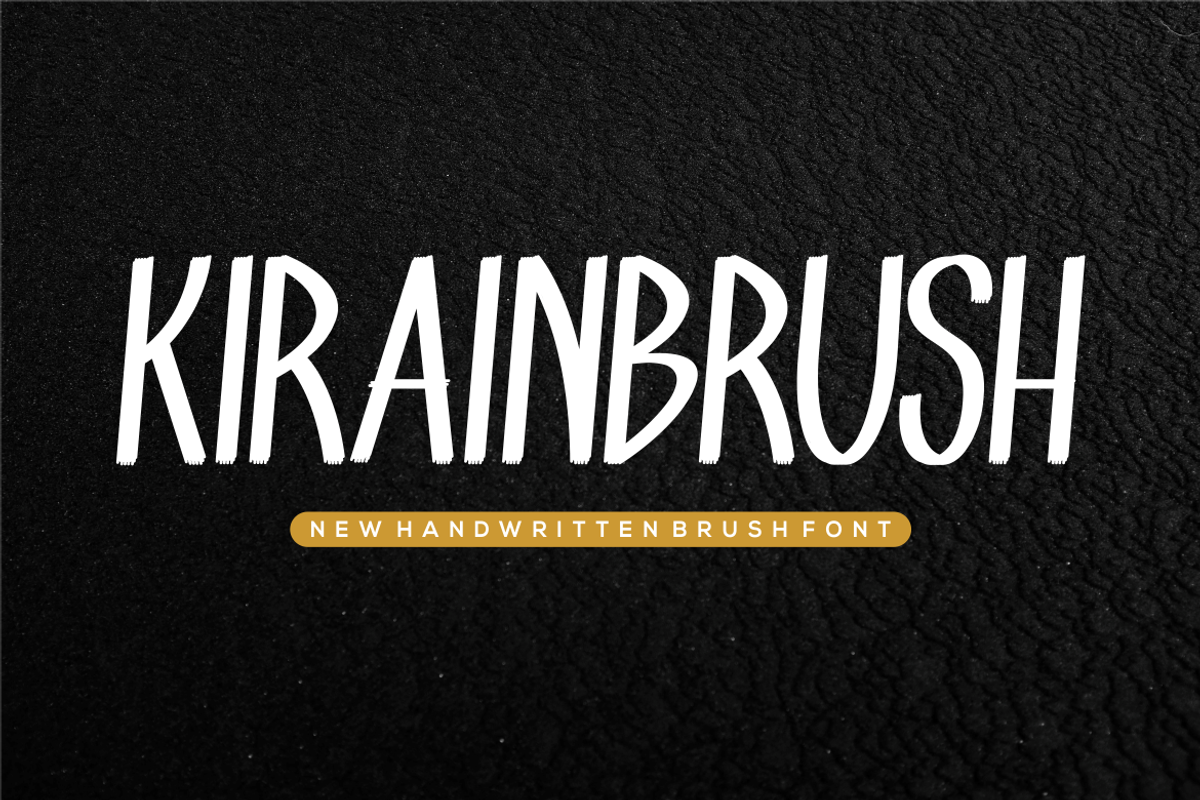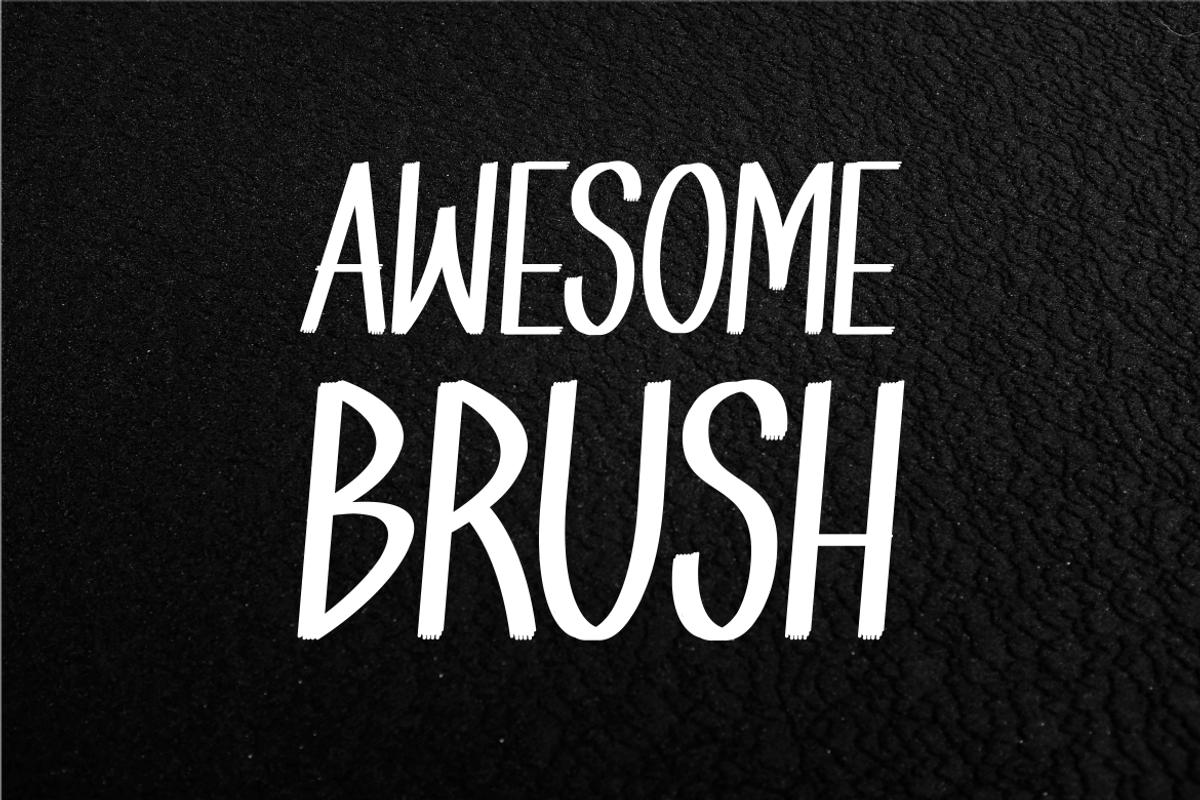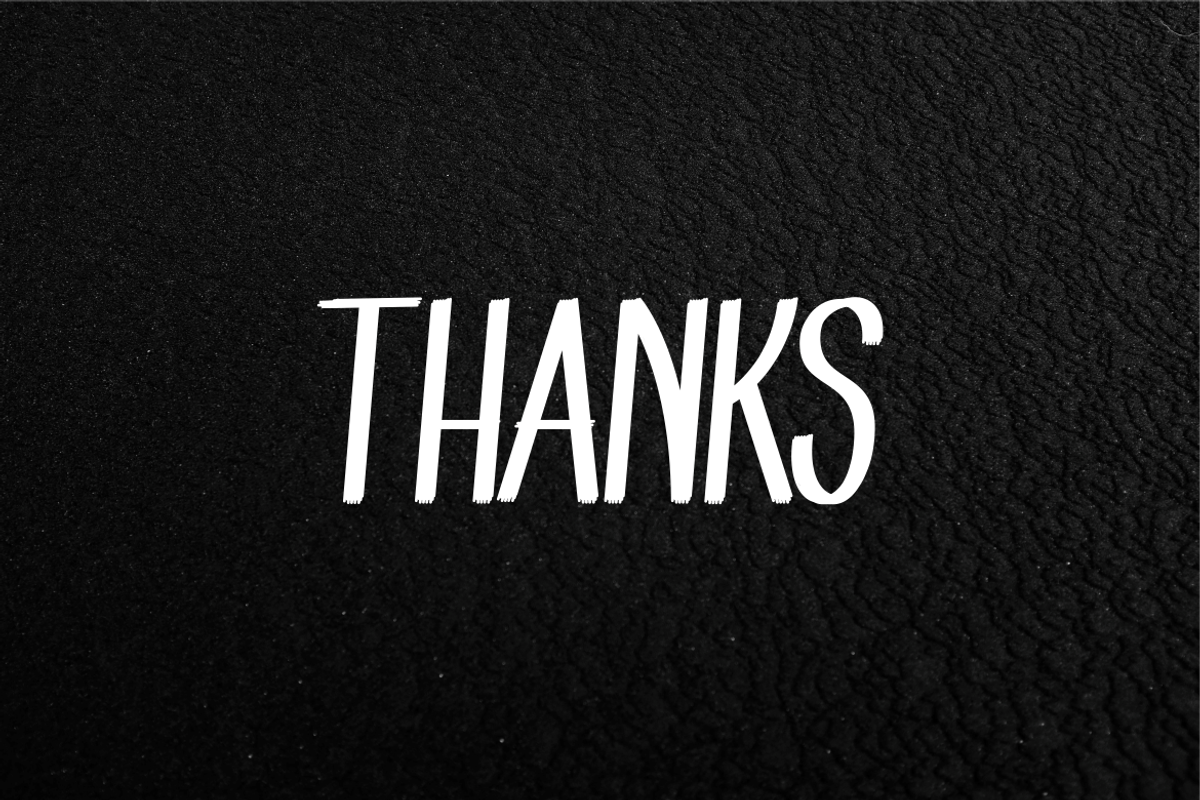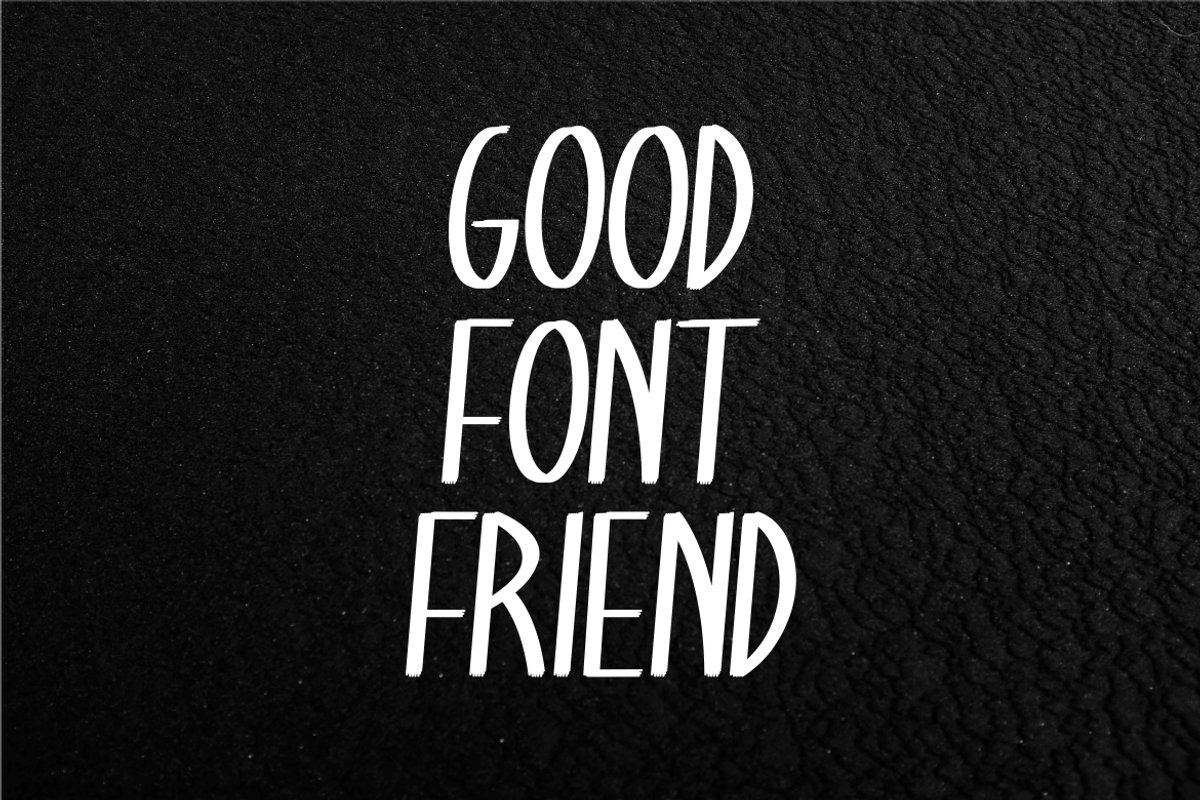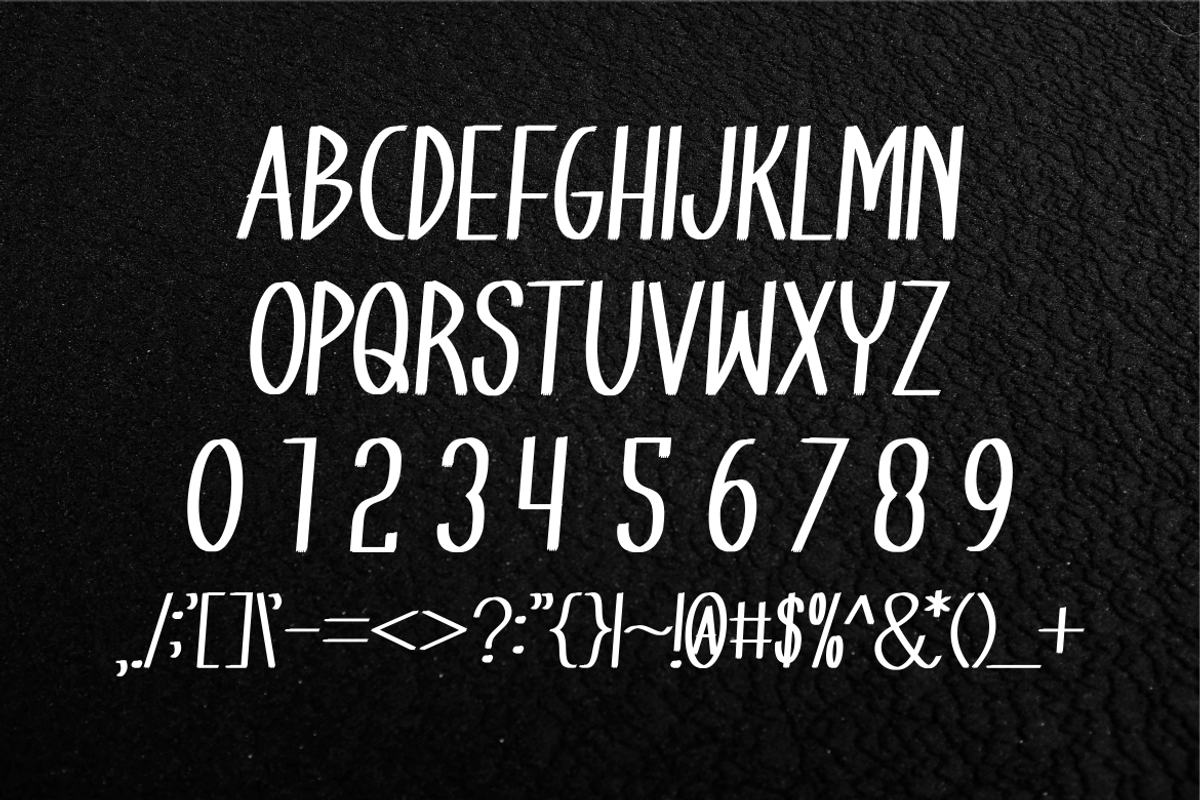
Kirainbrush Handwritten Font
Introducing our new product Kirainbrush Font - Modern Font
Kirainbrush Font - Modern Font is a bold and authentic display font. The font is suitable for any branding project like logo, t-shirt printing, esport, and many more. outstanding in a wide range of contexts.